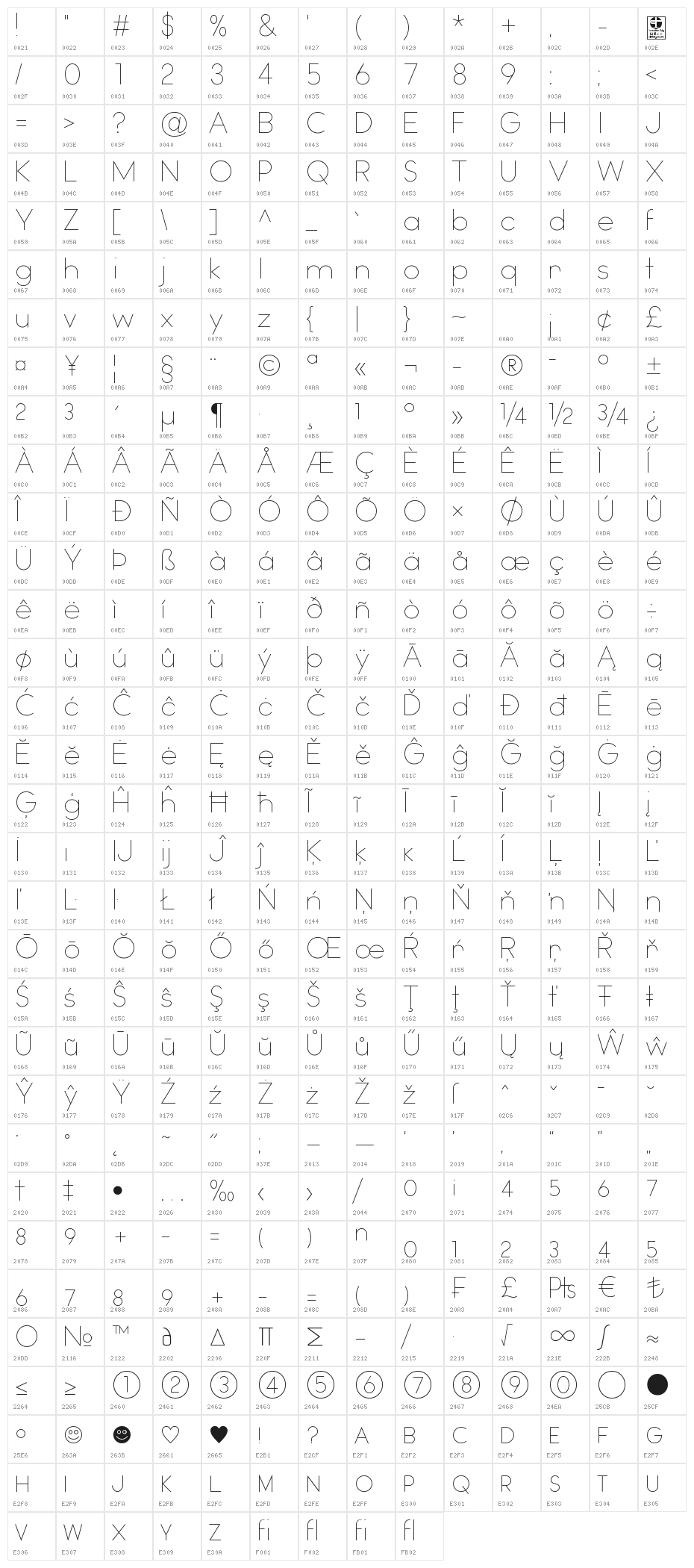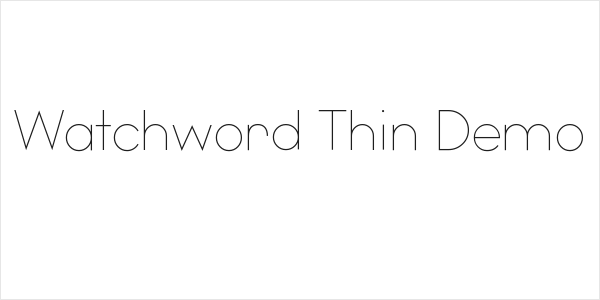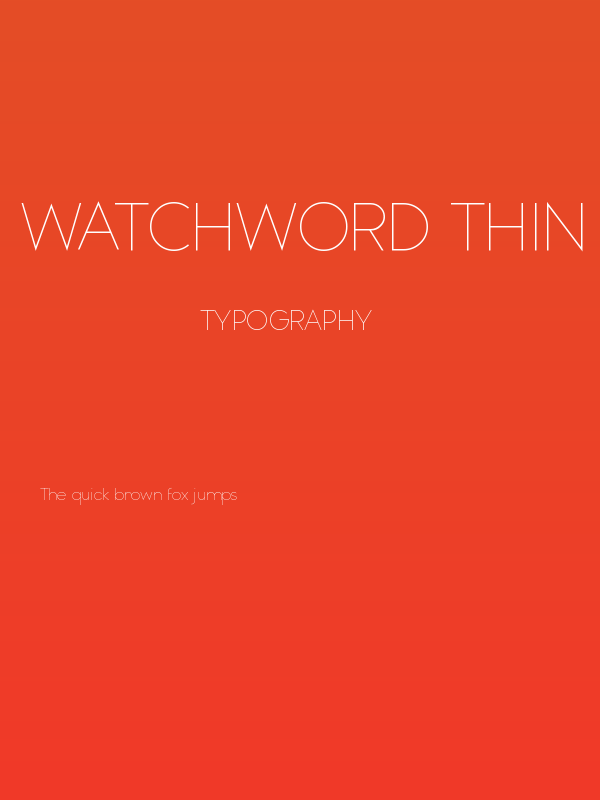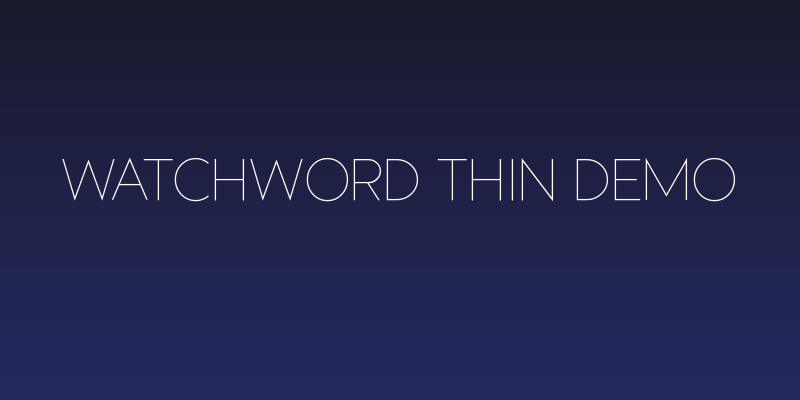
Watchword Thin Demo Font
Watchword Thin Demo Description
This font features a sleek and minimalist design with thin, uniform strokes that convey a sense of modern elegance. The characters are clean and geometric, with a consistent line weight that enhances readability while maintaining a stylish appearance. The uppercase and lowercase letters are well-proportioned, and the numerals are clear and distinct. The special characters are designed to complement the overall aesthetic, making this font versatile for various applications.